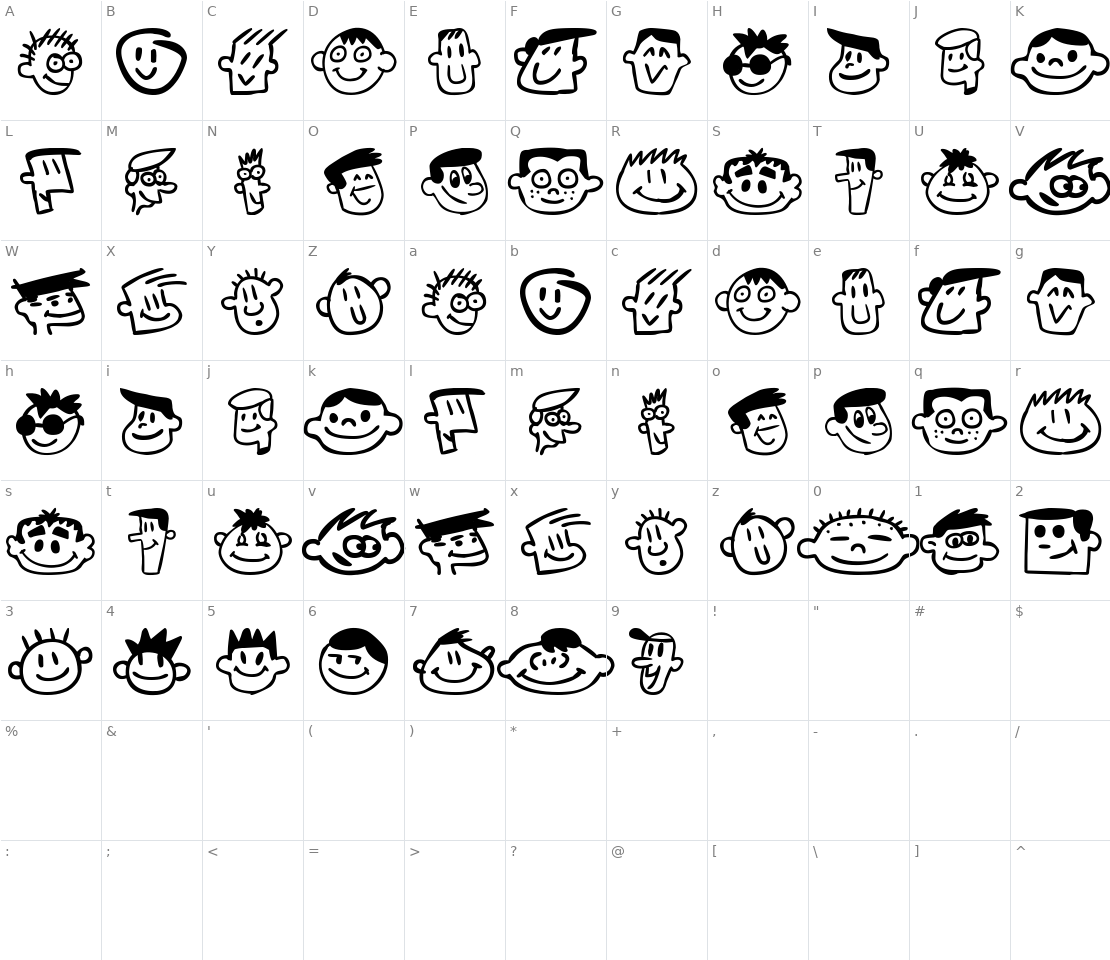
Chamaco
Chamaco is a dingbat font from Grafito Design filled with hand-drawn cartoon faces and kid characters, each with its own goofy personality. The style is loose and playful, with a sketchbook quality that feels genuinely hand-done rather than digitally polished. Useful for children's projects, classroom materials, or anywhere you need a cast of expressive little characters without having to illustrate them from scratch.